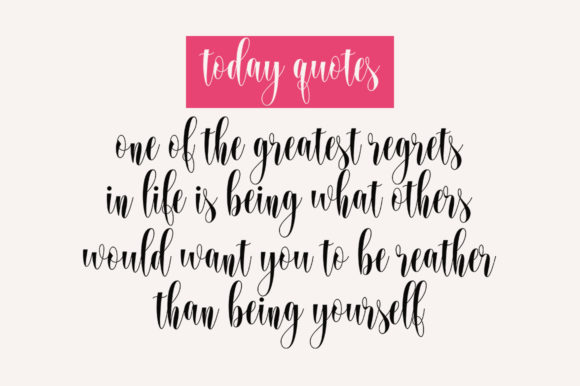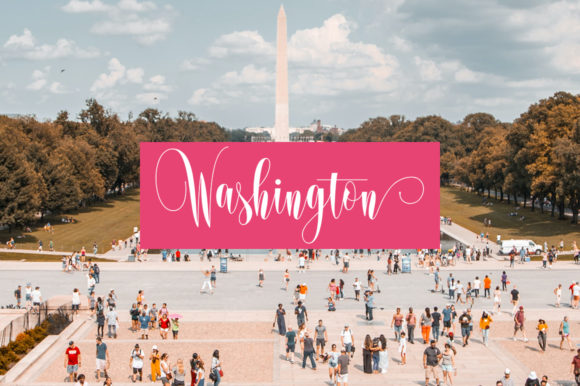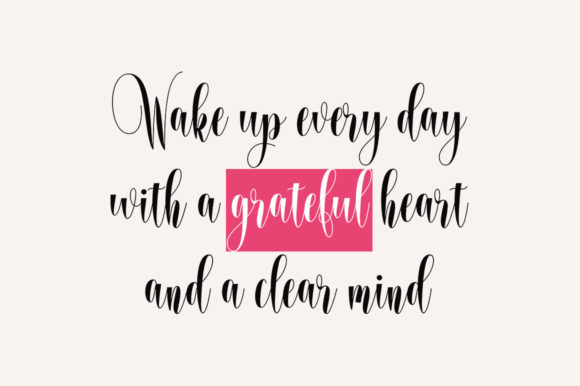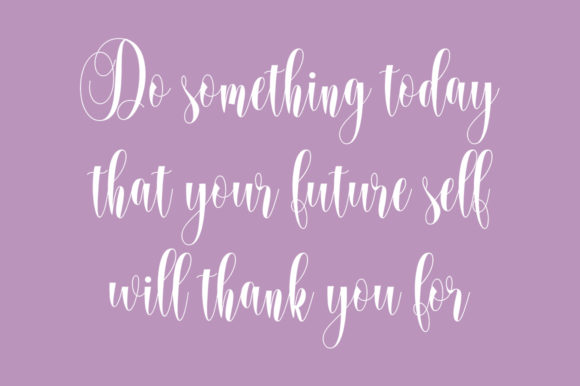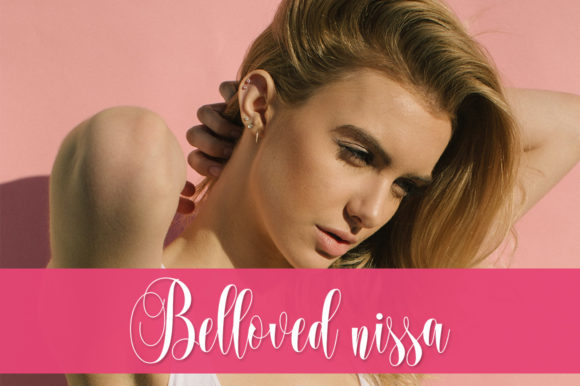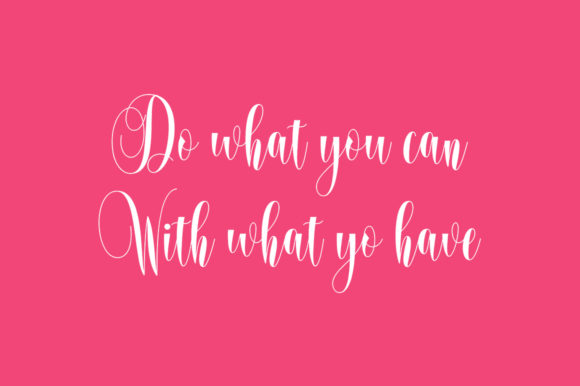
The Magic of Hellomelodi Font: A Designer’s Delight
Have you ever been in the middle of a design project, and suddenly, you feel like something’s missing? You’re not quite sure what it is, but you know it’s not quite right. I recall a wedding invitation project where I was struggling to find the perfect font. The client wanted something elegant, yet charming, and I was on the verge of giving up. That’s when I stumbled upon the Hellomelodi font, and it was love at first sight! 💕
A Personal Review: What I Love About Hellomelodi
So, what makes Hellomelodi so special? Here are a few things that I absolutely adore about this font:
- ✨ Elegant and Charming: Hellomelodi feels equally charming and elegant, making it perfect for a variety of design projects.
- ✅ PUA Encoded: This font is PUA encoded, which means you can access all of the glyphs and swashes with ease!
- 💫 Varying Baseline: The font features a varying baseline, which adds a touch of whimsy and playfulness to your designs.
- 🔥 Smooth Lines and Gorgeous Glyphs: The smooth lines and gorgeous glyphs make Hellomelodi a stunning addition to any design.
While Hellomelodi is an amazing font, there are a few small quirks to be aware of:
- 🤔 Learning Curve: As with any font that features a lot of glyphs and swashes, there may be a slight learning curve to get the hang of using it.
- ⚠️ Overuse: With a font as beautiful as Hellomelodi, it’s easy to overuse it. Be mindful of using it in moderation to avoid overwhelming your design.
The Story Behind Hellomelodi
While the true story behind Hellomelodi remains a mystery, it’s easy to imagine that it was created with love and care by a designer who wanted to craft a font that would bring joy and elegance to a variety of design projects. Perhaps the designer was inspired by the beauty of handwritten calligraphy and wanted to create a font that would capture that essence.
| What is Hellomelodi font? | Hellomelodi is a beautiful, elegant script font perfect for a variety of design projects, including wedding invitations, quotes, greeting cards, and more. |
| Is Hellomelodi PUA encoded? | Yes, Hellomelodi is PUA encoded, making it easy to access all of the glyphs and swashes. |